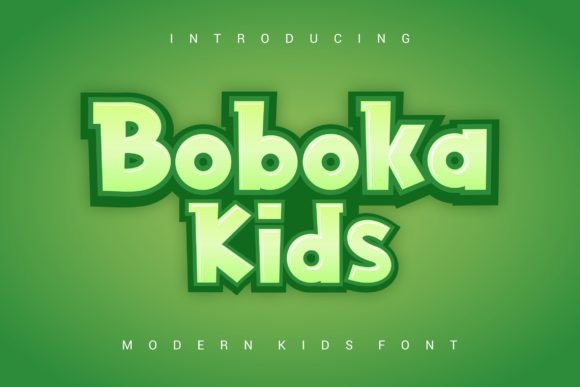
The Ultimate Guide to Boboka Kids Font: A Fun and Friendly Display Font
I’ll never forget the time I was working on a project for a children’s book, and I just couldn’t find the right font to bring the story to life. The client wanted something fun, playful, and engaging, but everything I tried seemed either too boring or too over-the-top. That’s when I stumbled upon Boboka Kids Font, and let me tell you, it was love at first sight! 💕
Boboka Kids is a fun and friendly display font that’s perfect for cartoon-related designs, children’s games, or any creation that requires a lovely touch. In this article, I’ll share my honest review of the font, provide a practical guide on how to use it, and explore some similar fonts and alternatives.
Honest Review: What I Love and What I Don’t
• ✅ Unique and playful design that’s sure to grab attention
• ✅ Works well for both digital and print projects
• ✅ OpenType features, glyphs, and stylistic alternates for added creativity
• ⚠️ May not be suitable for very formal or professional projects
• ⚠️ Some characters may not work well in all contexts (e.g., @ symbol)
Boboka Kids was designed with one goal in mind: to create a fun and friendly display font that’s perfect for kids’ designs and projects. The designer, who wishes to remain anonymous, drew inspiration from classic children’s books and cartoons. The result is a font that’s both playful and engaging, with a unique personality that’s sure to bring joy to any project.
Q: What is Boboka Kids Font?
A: Boboka Kids Font is a fun and friendly display font designed specifically for kids’ designs and projects.